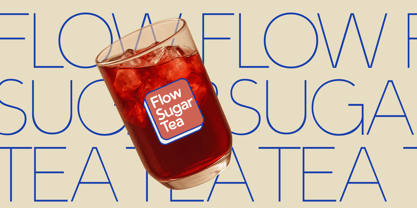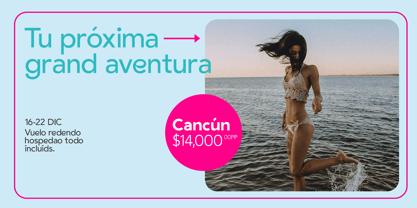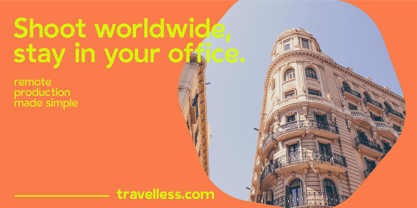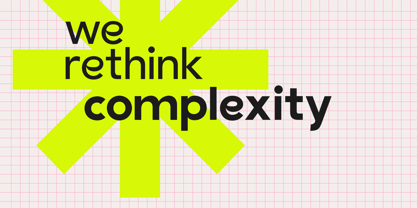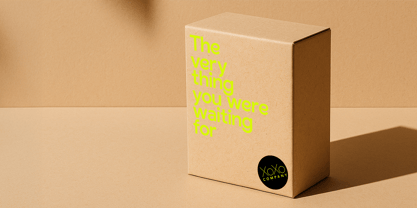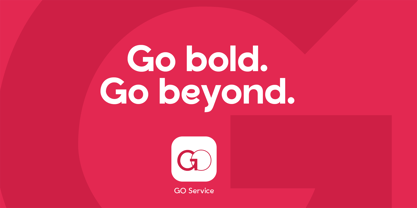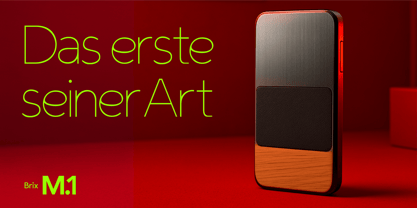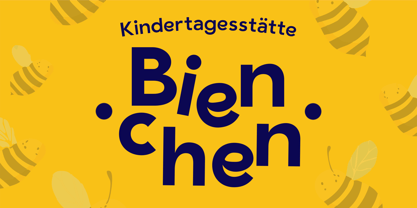
RFX Gambia
by Xaver Design Studio
The RFX Gambia Font Family was designed by Roland Wittl and published by Xaver Design Studio. RFX Gambia contains 7 styles and family package options. More about this family
Modern. Open. Versatile.
This contemporary sans serif typeface stands out with its clean lines, balanced proportions, and subtle lightness — making it the perfect choice for modern branding, start-ups, and bold advertising. It radiates openness, clarity, and a friendly attitude, bringing a fresh and engaging tone to any design.
With a wide range of carefully crafted weights, it offers maximum flexibility across layouts and brand systems. Extended language support for both American and European markets ensures it's ready for global use.
A friendly statement in type – made for those who design to inspire.